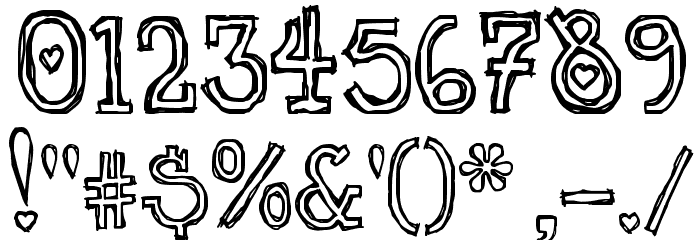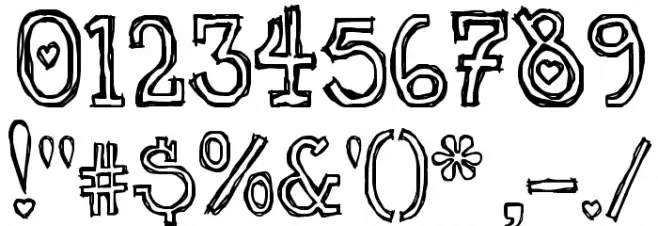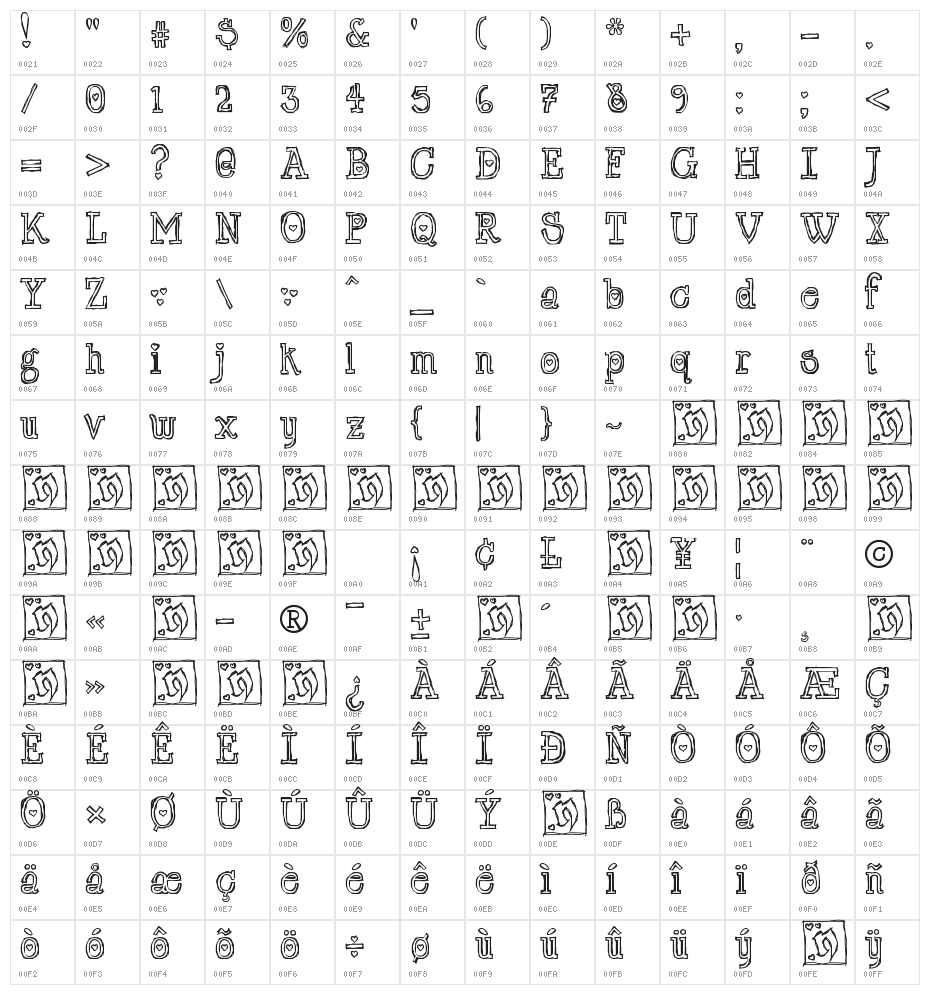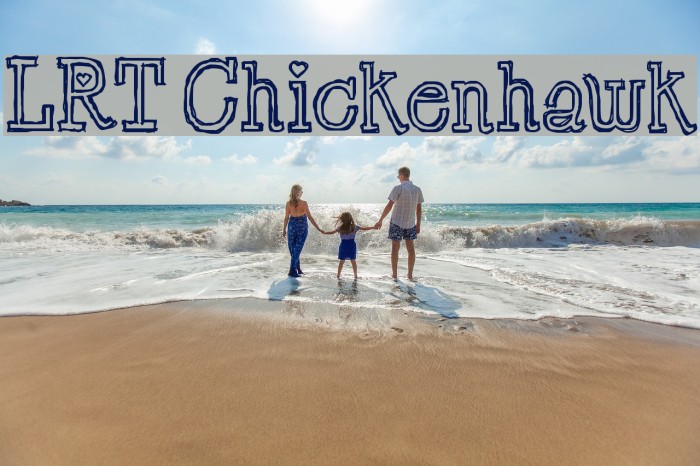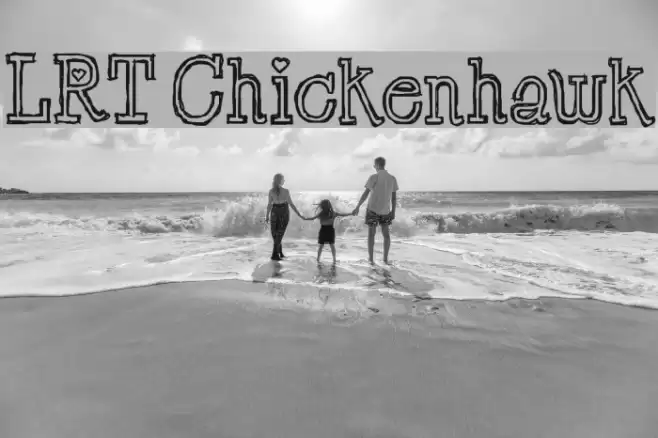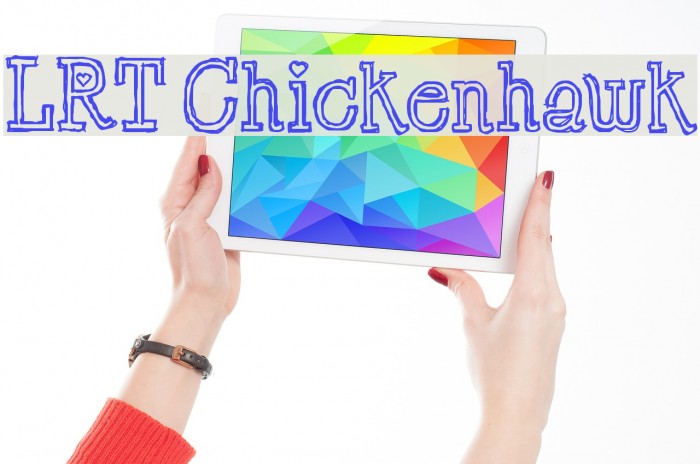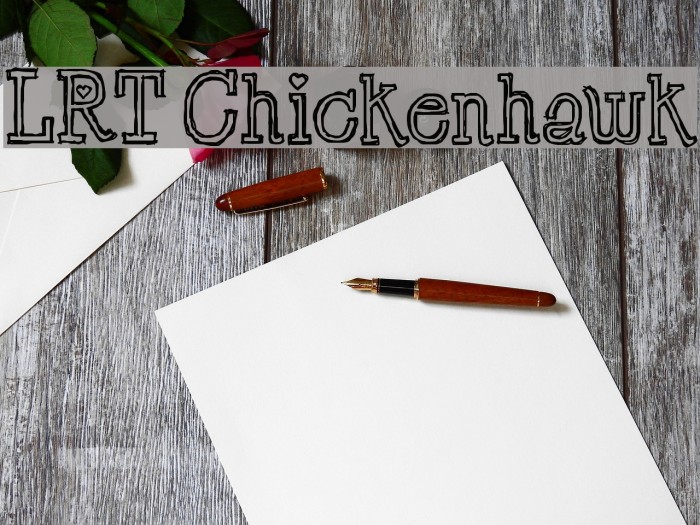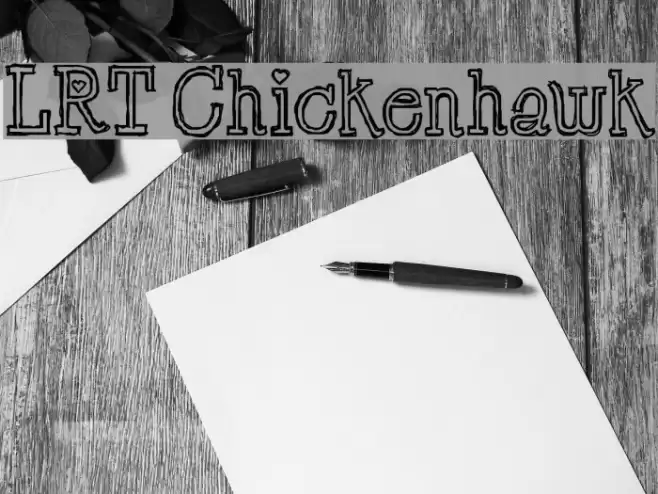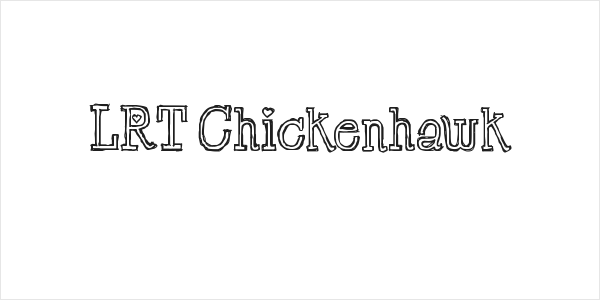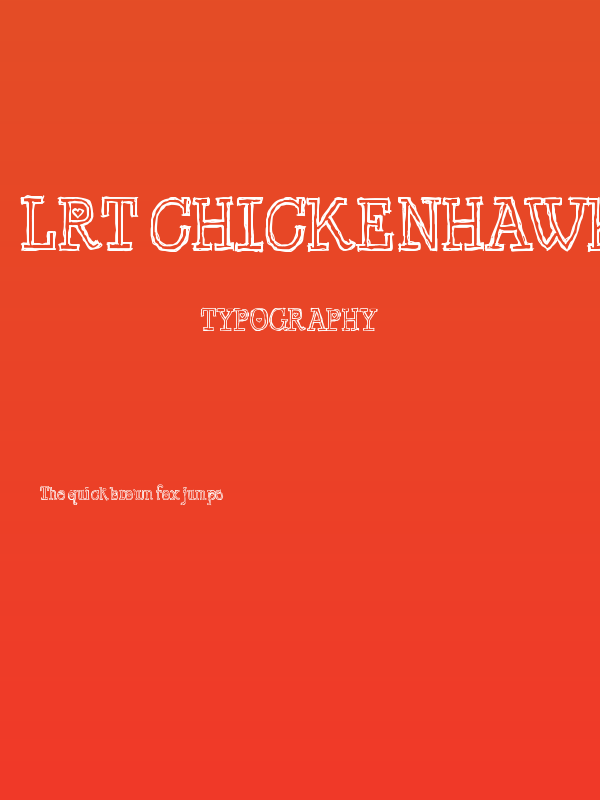
LRT Chickenhawk Font
LRT Chickenhawk Description
This font features a playful and whimsical design, characterized by its bold, hand-drawn appearance. Each letter is outlined with a thick, uneven stroke, giving it a sketch-like quality. The characters have a slightly irregular shape, adding to the casual and artistic feel. The uppercase and lowercase letters maintain a consistent style, with the uppercase being slightly larger and more pronounced. Numbers and special characters follow the same design principles, ensuring a cohesive look. This font's unique style makes it stand out, perfect for projects that require a fun and informal touch.
| Proposed Projects | Ideal for children's books, comic strips, playful branding, and creative posters. |